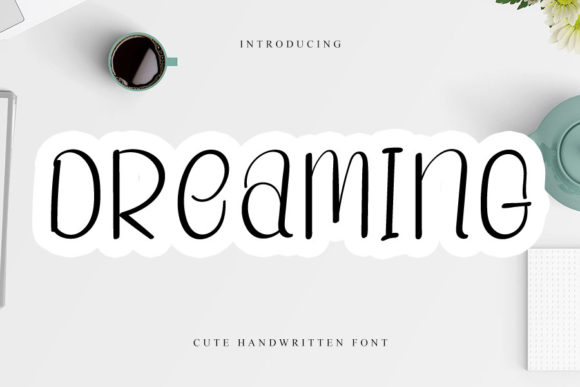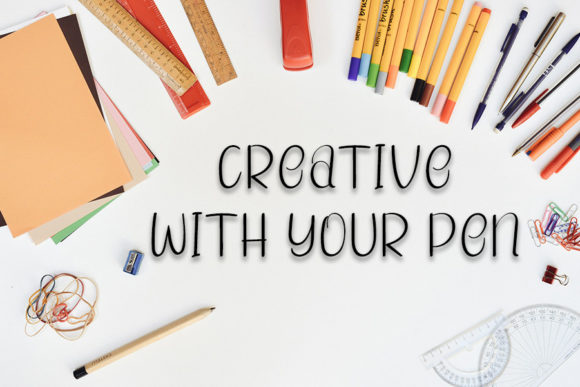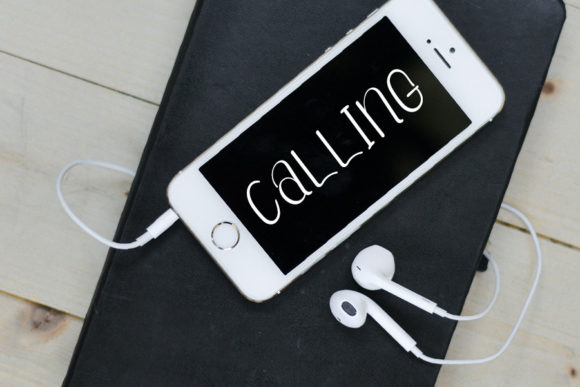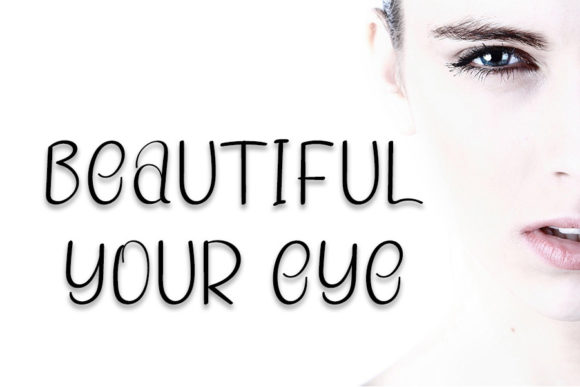
About Dreaming Font
Dreaming is a captivating handwritten font that seamlessly combines modern style with the timeless allure of classic calligraphy. Its contemporary flair and impeccable form make it an ideal choice for a wide range of design projects.
With its balanced and varied strokes, Dreaming exudes a sense of dynamism, adding a touch of sophistication and charm to your creations. The font’s inspiration from classic calligraphy is evident in its graceful curves and meticulously crafted letterforms, which give it a sense of enduring elegance.
The stylish and contemporary atmosphere of Dreaming makes it well-suited for various design applications. Whether you’re working on branding, logos, invitations, posters, or social media graphics, this font effortlessly elevates the visual appeal of your projects.
Dreaming has been carefully designed to maintain its elegance and clarity across different sizes and mediums. Its versatility allows it to seamlessly adapt to both digital and print designs, making it a versatile choice for a wide range of creative endeavors.
Incorporating Dreaming into your designs can add a touch of artistic flair and create a lasting impact on your audience. Whether you’re aiming for a refined and upscale look or a modern and artistic feel, Dreaming is crafted to enhance the beauty of your projects and bring your creative vision to life.